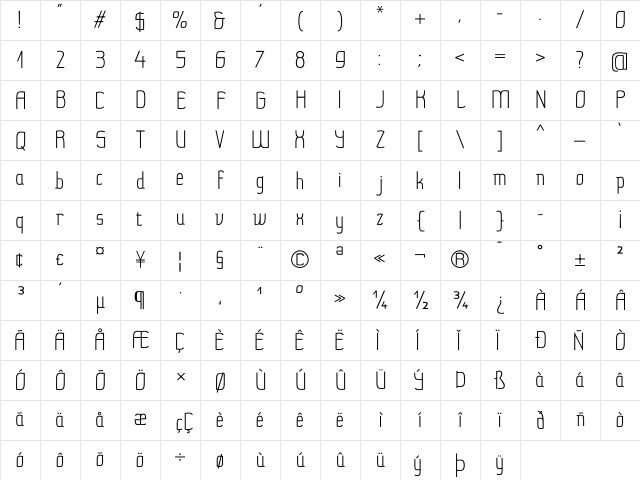
Milena Sans Regular Free Font
Milena Sans Regular
Foundry: Milena Gajovic
Designer: Milena Gajovic
Design Context for Milena Sans
Milena Sans is a composed and adaptable typeface that performs quietly and consistently across a wide range of design contexts.